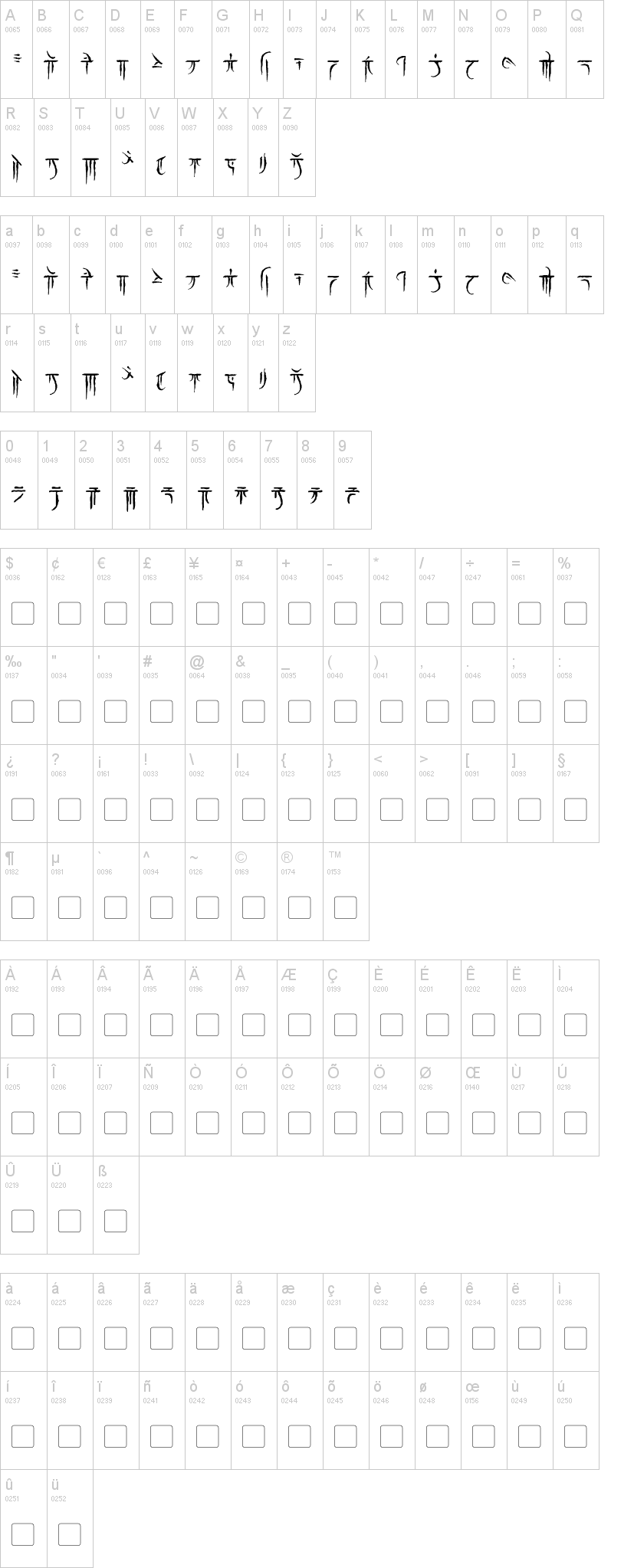
Iokharic Italic.otfIokharic Bold.otfIokharic Bold Italic.otfNote of the authorIokharic is a Mandarin-stylized runic typeface based on the language described in Wizards of the Coasts Dungeons and Dragons: Chromatic Dragons book. The glyphs in this face are extremely similar to those found in the Chinese language. Includes canon characters. Includes bold, italic, and bold-italic weights.